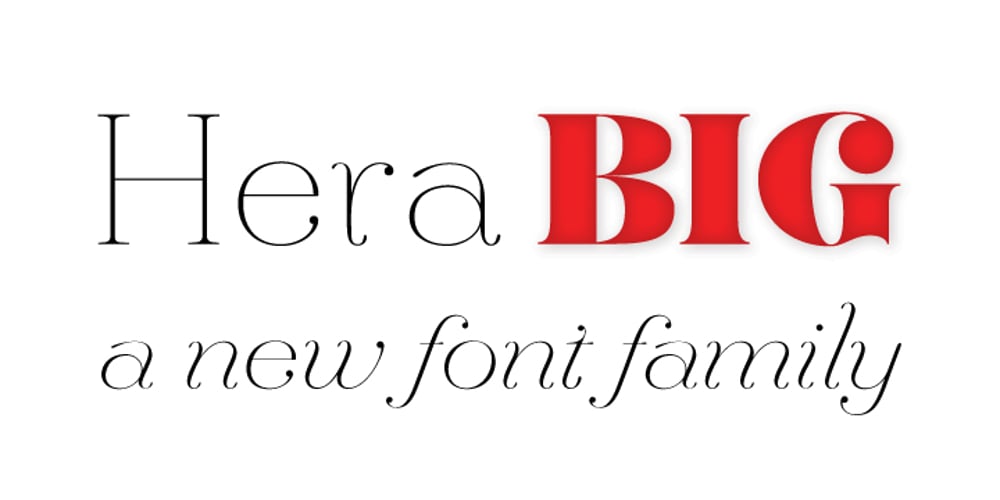
Hera Big
Hera Big font
Hera Big Font Family was designed by Lucas Sharp and published by Lucas Sharp. Hera Big contains 16 styles and family package options. Hera Big is a type family in eight weights & 16 fonts. The family explores the motion and fluidity of the ball serif, in an evolution from its previous identity as a counterpart to the slab serif. Informed by great fat-faces from Figgins to Lubalin, but never deferring to precedent by default, Hera is a fresh mix of originality and organic form, never sacrificing function for beauty.